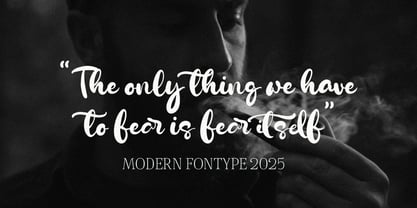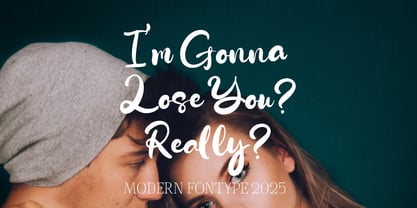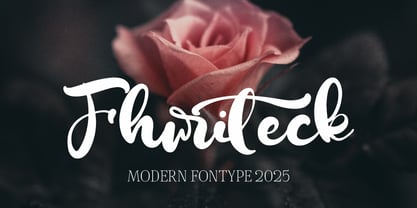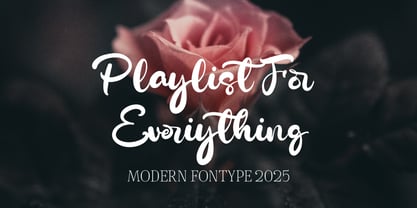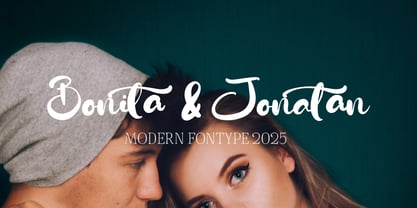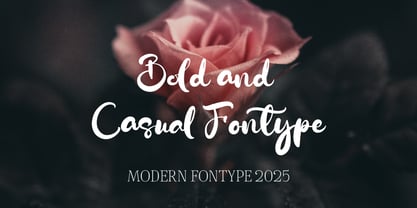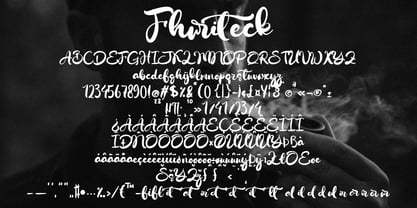
Fhuriteck
by Naatypo
The Fhuriteck Font Family was designed by Kurnia Elis Setyorini and published by Naatypo. Fhuriteck contains 1 styles. More about this family
Bring your letters to life with the Fhuriteck. These perfectly balanced typefaces have been carefully designed to work not only as standalone fonts, but also to pair together effortlessly. With the versatile style, You can use this font for any purpose such as logotype, branding, wedding invitations, and quotes. The best part is, you don't need to search for the pairing. It's gonna compliment each other.
Designers: Kurnia Elis Setyorini
Foundry: Naatypo